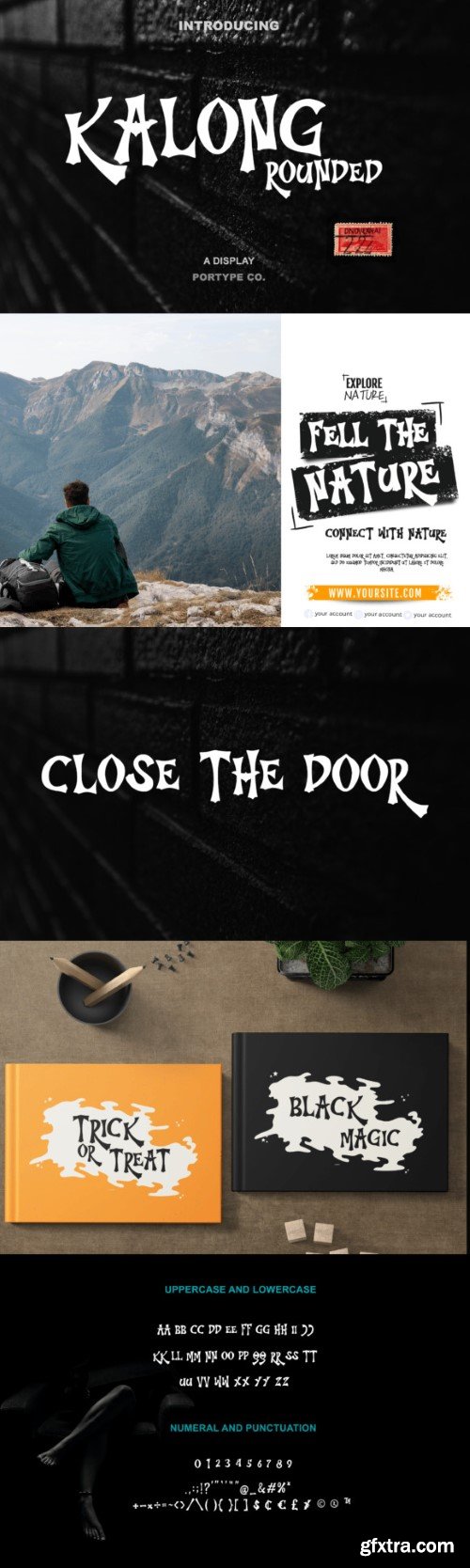
Kalong Rounded Font
Kalong Rounded Font embodies the essence of Halloween with its eerie and sinister aesthetic. Crafted with meticulous attention to detail, this font is a spine-chilling choice for any project seeking a touch of macabre charm. The name “Kalong,” derived from the Indonesian word for “bat,” perfectly encapsulates the font’s spooky allure.